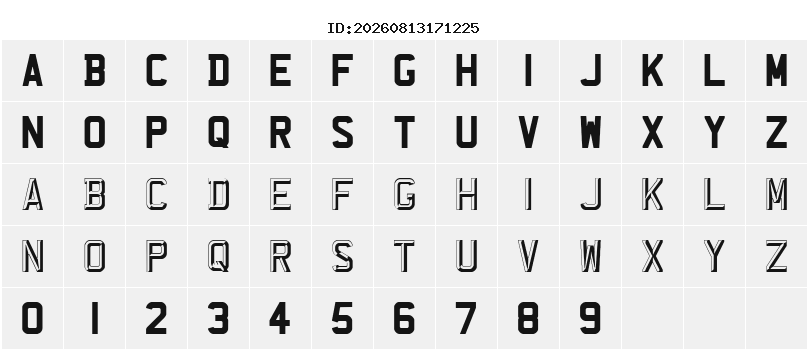
• Font Name: REGISTRATION PLATE UK
• Designer: SpideRaY
About REGISTRATION PLATE UK.ttf
REGISTRATION PLATE UK.ttf is a modern, elegant sans-serif font designed for ultimate readability and visual harmony. Perfect for branding, headlines, web design, and print materials.